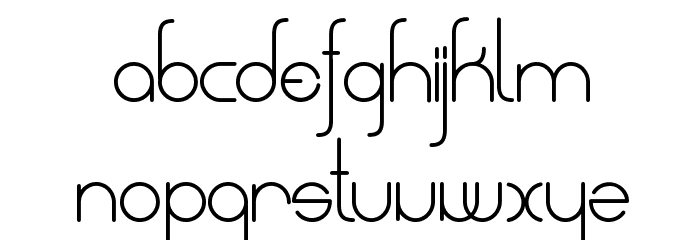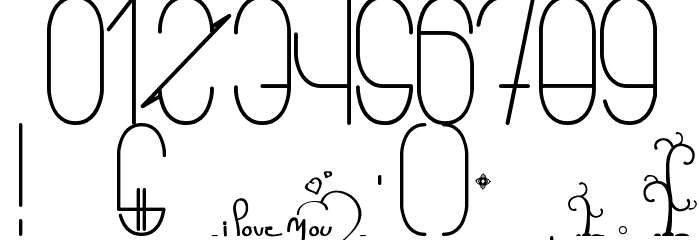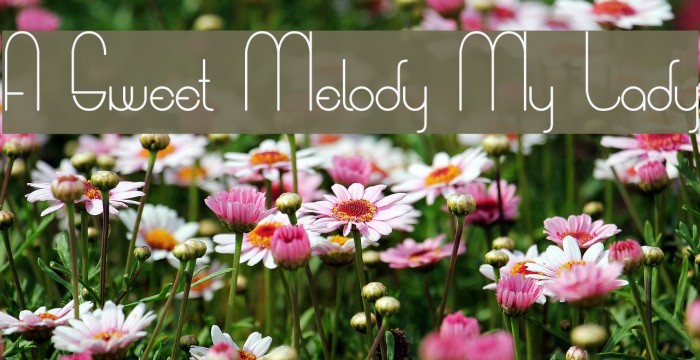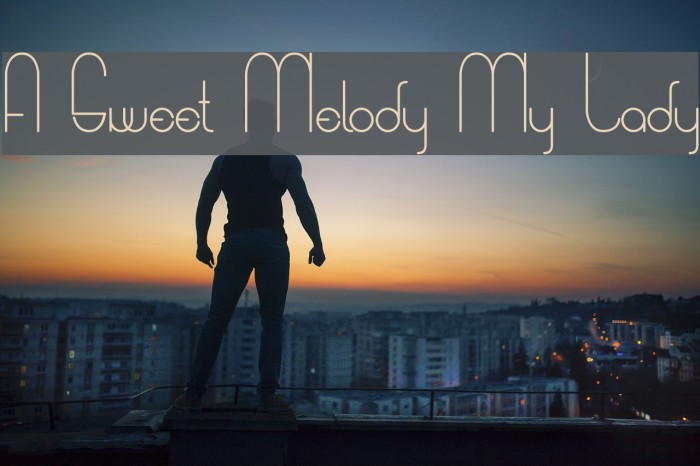
A Sweet Melody My Lady Font
This font features a unique and elegant design with elongated, thin strokes that create a sense of sophistication and modernity. The uppercase letters are tall and narrow, with a consistent height that gives them a uniform appearance. The lowercase letters maintain the same thinness, providing a harmonious balance between the two cases. Numbers are similarly styled, with a sleek and contemporary look. Special characters are creatively designed, adding a playful touch to the overall aesthetic. The font's minimalistic and stylish nature makes it suitable for projects that require a touch of elegance and modern flair.
A sleek, modern font with elongated, thin strokes and a sophisticated style.
- Proposed Projects: Ideal for fashion branding, luxury product packaging, modern art posters, and elegant invitations.
- Category: Modern
- Weight: Light
- Use Case: Logos, Headlines, Invitations